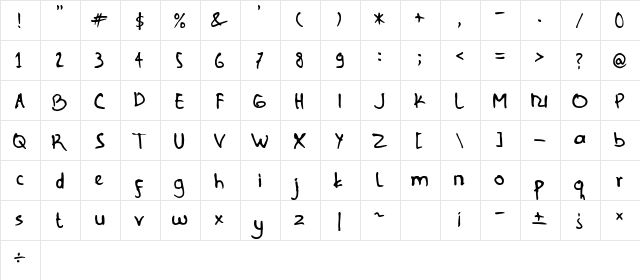
COFFETE Regular
Design Context for COFFETE Typeface
COFFETE is a composed and adaptable typeface that performs quietly and consistently across a wide range of design contexts.